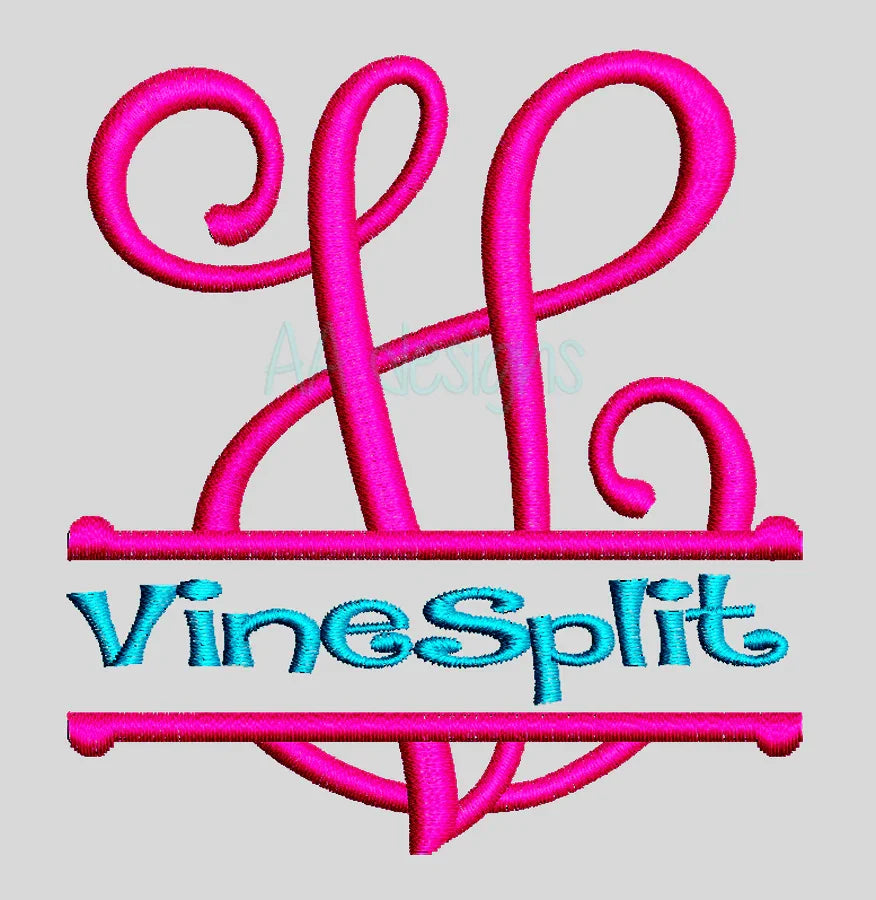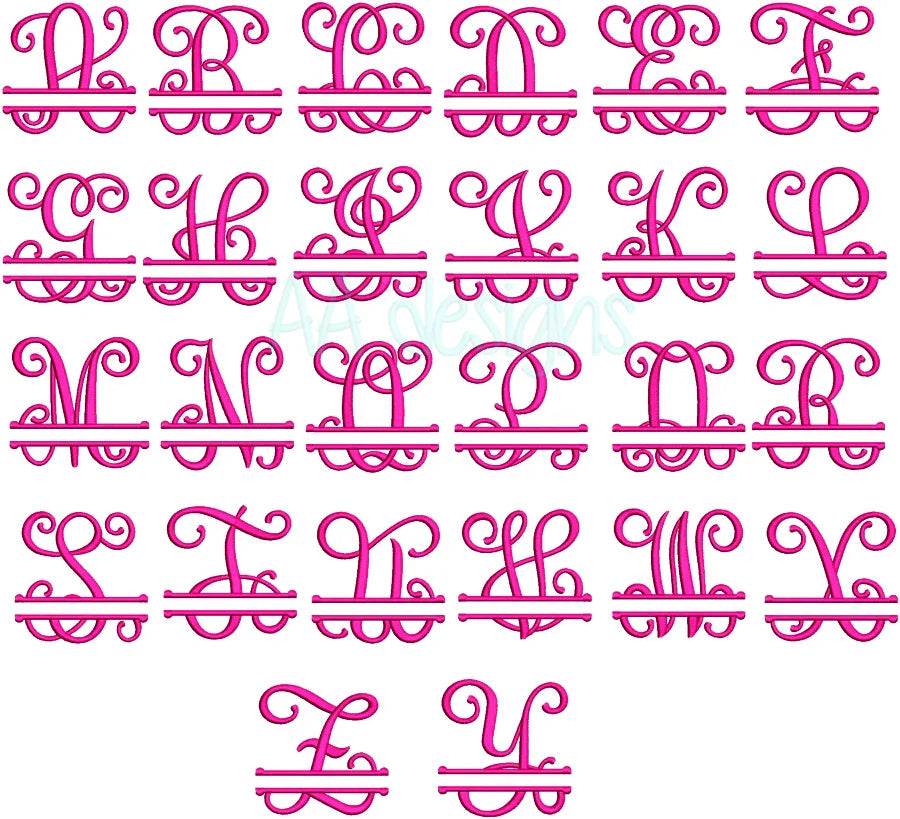
Vine Split monogram embroidery digital font
In the space of the split, you can add any text you like. The added text in this space does not include in this listing. The sample “Vine Split” just for your reference only. Please contact us to shop for more font you like to add in this area.